I love a good font. I collect them to a fault. They are just so much fun to play with!
In honor of my brother in law’s upcoming marriage, I decided to make a huge list of free wedding fonts for all things DIY!
I hope you enjoy!
Free Wedding Fonts – Script
I’m going to differentiate script fonts from handwriting fonts here, and it’s going to be totally subjective.
My criteria is how precise the writing is. Handwritten will be more bouncy and modern calligraphic, or even just downright handwriting, while I’ll call script more uniform and more like typeface.
It really doesn’t mean anything. I just needed a way to break up so many gorgeous fonts!
Free Wedding Fonts – Serif
One of the things I love about serif fonts is that they often come in font families! Aw, how cute.
That way you get four or more fonts for the price of, well, nothing. because they’re still free. But it still feels like you’re getting a great deal!
And it lets you coordinate fonts with zero effort on your part. Score!
I can definitely see this font on a blackboard background!
Free Wedding Fonts – Sans Serif
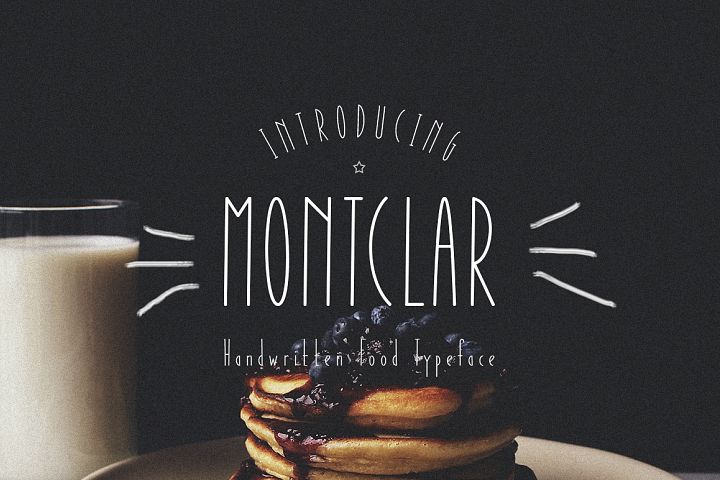
Okay, so this says it’s a food font, and it’s even got cute little food icons! But I think it would make for a great minimalist invitation, too.
Free Wedding Fonts – Handwriting
Free Wedding Fonts – Font Duos
I love a good font duo! If you’ve ever wondered which fonts look good together, you don’t have to worry with these handy sets!
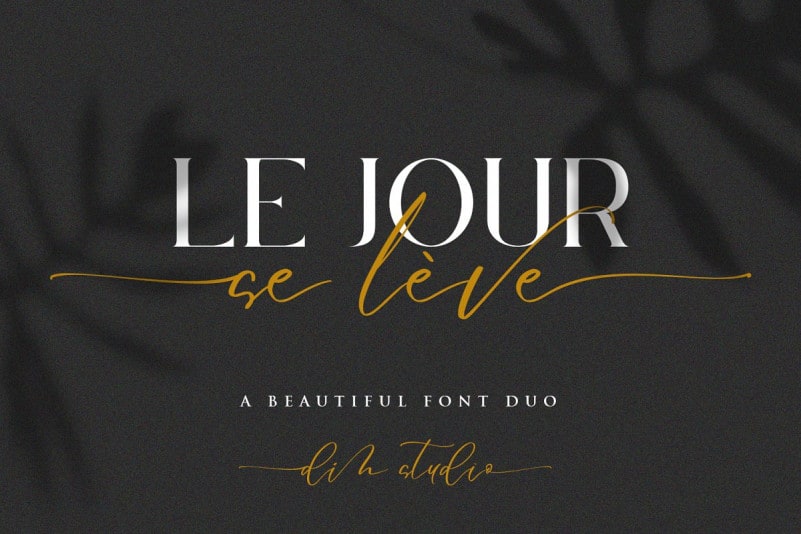
This one is a twofer! And they’re both so cute!
I hope you’ve loved these fonts as much as I do! And would you believe that these are just my favorites? They’re just the tip of the iceberg.